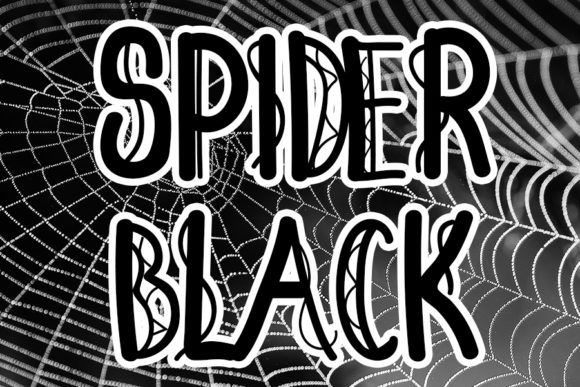
Dive into the mesmerizing world of Spider Black, a captivating display font that will transform your creative visions into stunning masterpieces. Its bold and original character adds an authentic touch to any project, inviting you to unleash your imagination.
With Spider Black, your words will dance off the page, leaving an unforgettable impression. Its unique style is perfect for crafting eye-catching letterheads and titles that demand attention. Envision your stationery adorned with this font, exuding an air of sophistication that will make your correspondence stand out from the mundane.
Spider Black is the perfect companion for those seeking to evoke the spirit of Christmas. Its bold strokes and merry vibe will infuse your holiday designs with warmth and joy. Imagine Christmas cards that come alive with Spider Black, spreading cheer and bringing smiles to the faces of your loved ones.
This versatile font is a treasure trove of possibilities, empowering you to create captivating posters and flyers that will turn heads. Its bold presence will ensure your message resonates with your audience, leaving a lasting impact that will inspire and engage.
Embrace the allure of Spider Black today, and let its bold strokes weave a tapestry of creativity that will captivate your audience. With its authentic charm and endless versatility, Spider Black is the font you've been waiting for to elevate your designs to new heights.